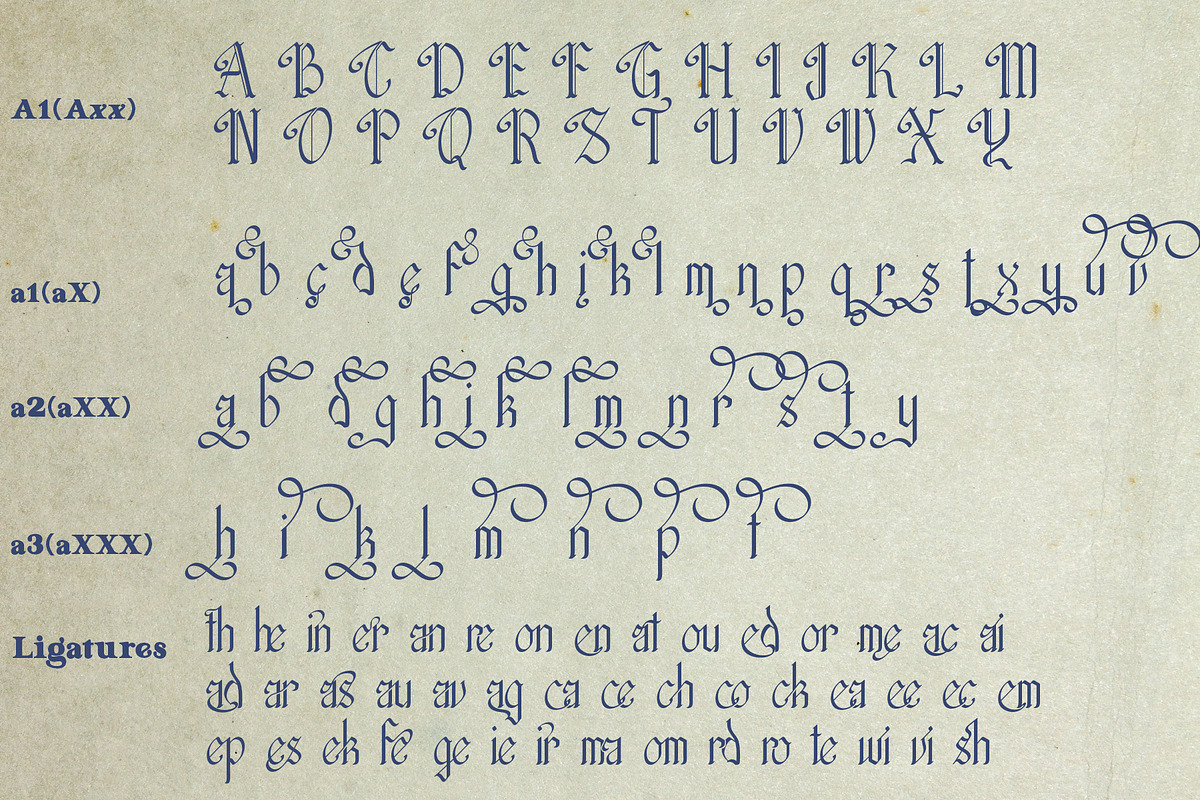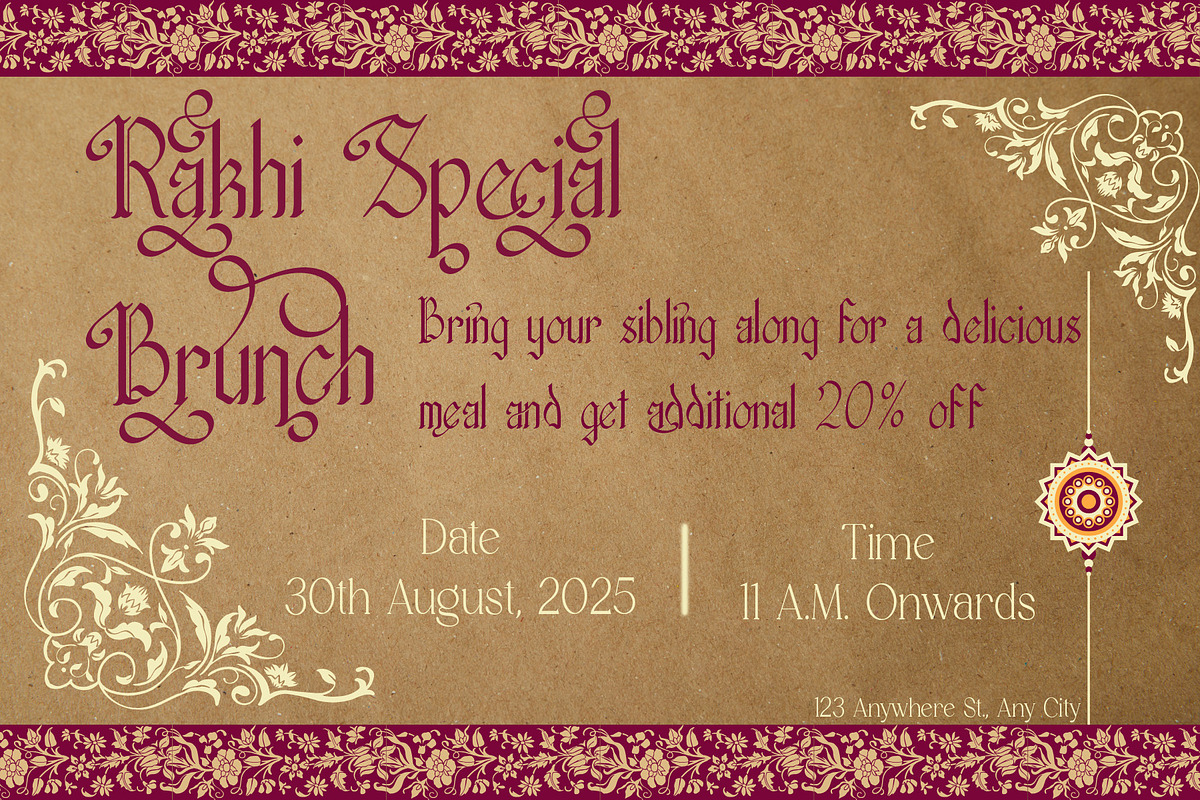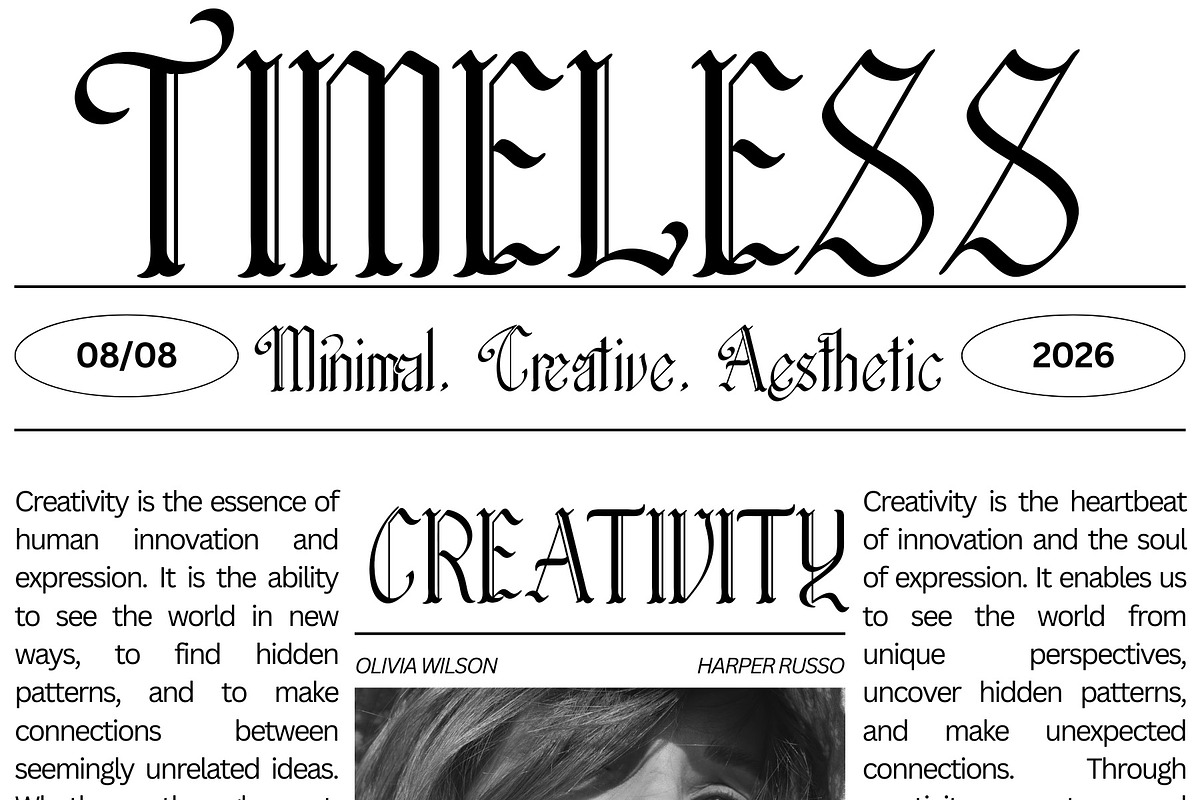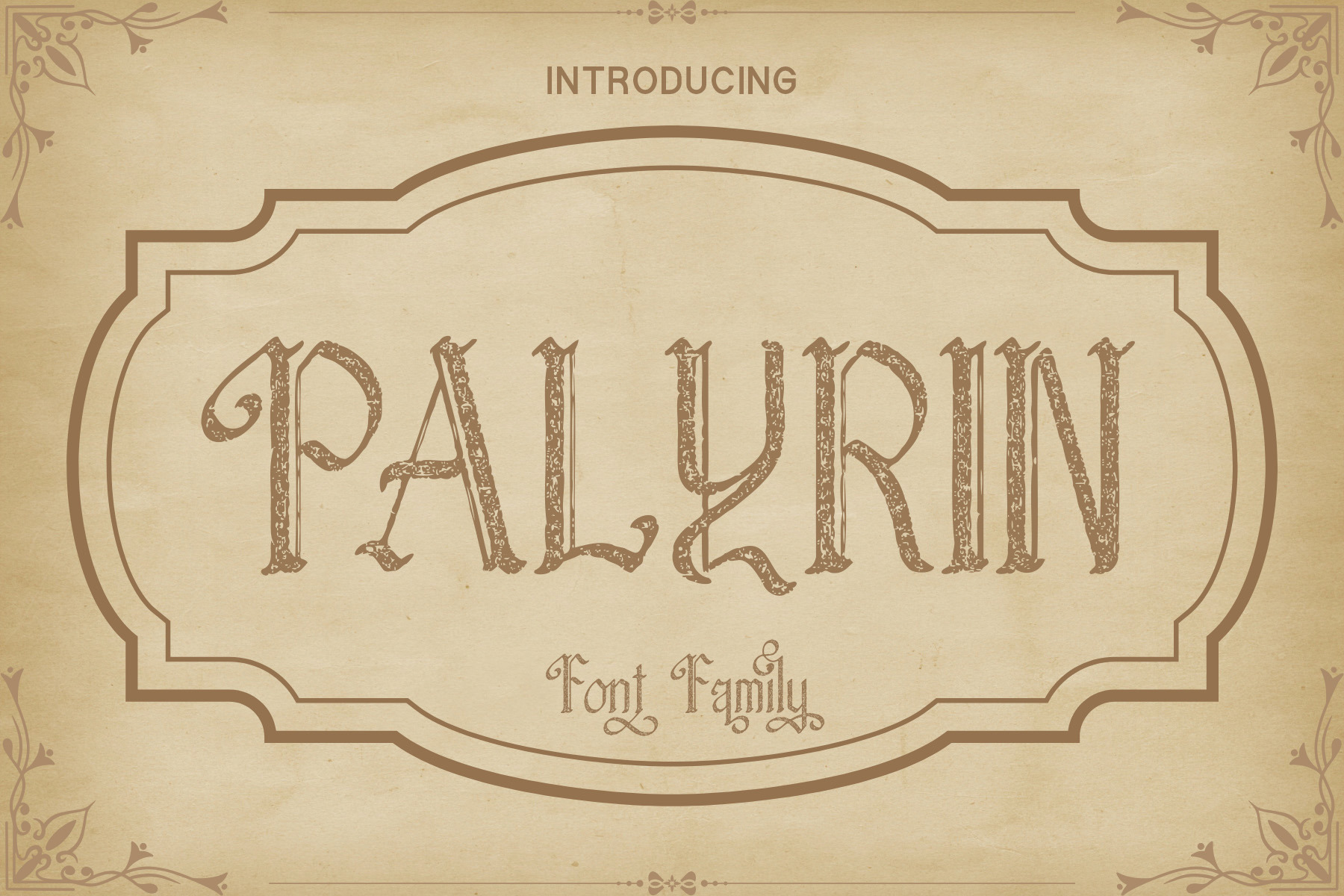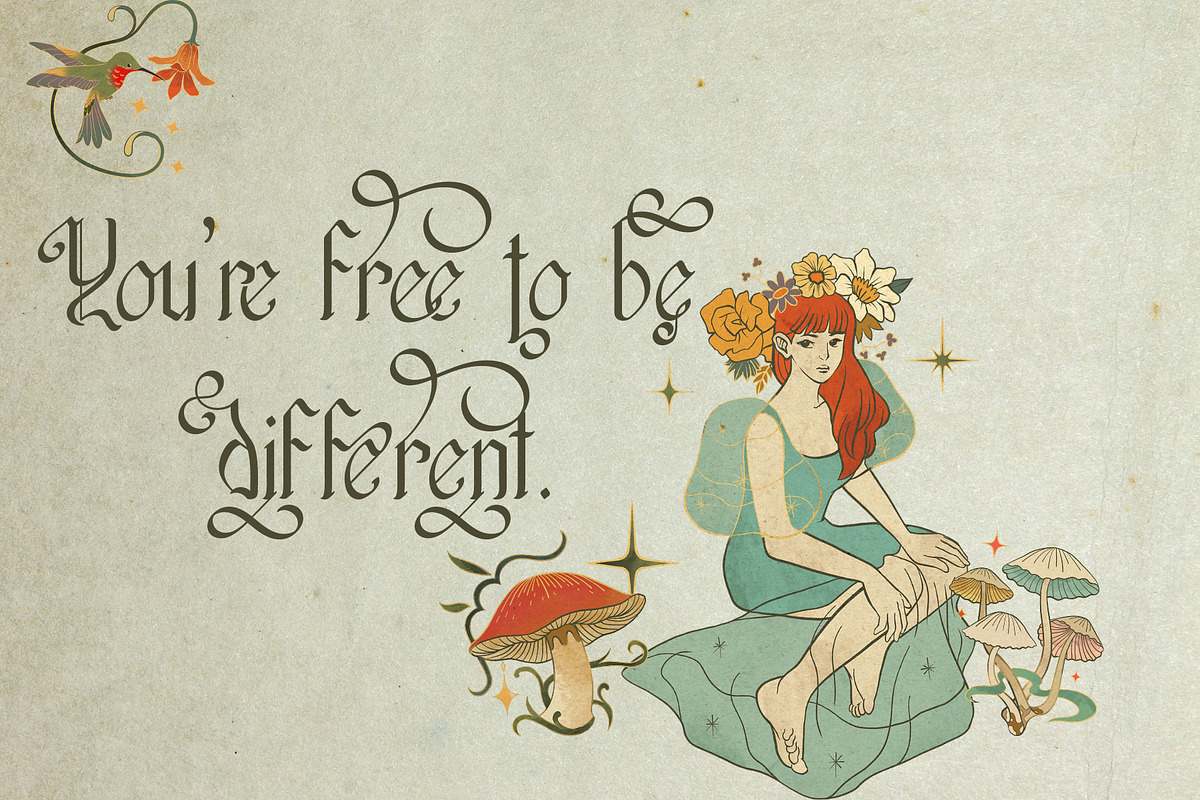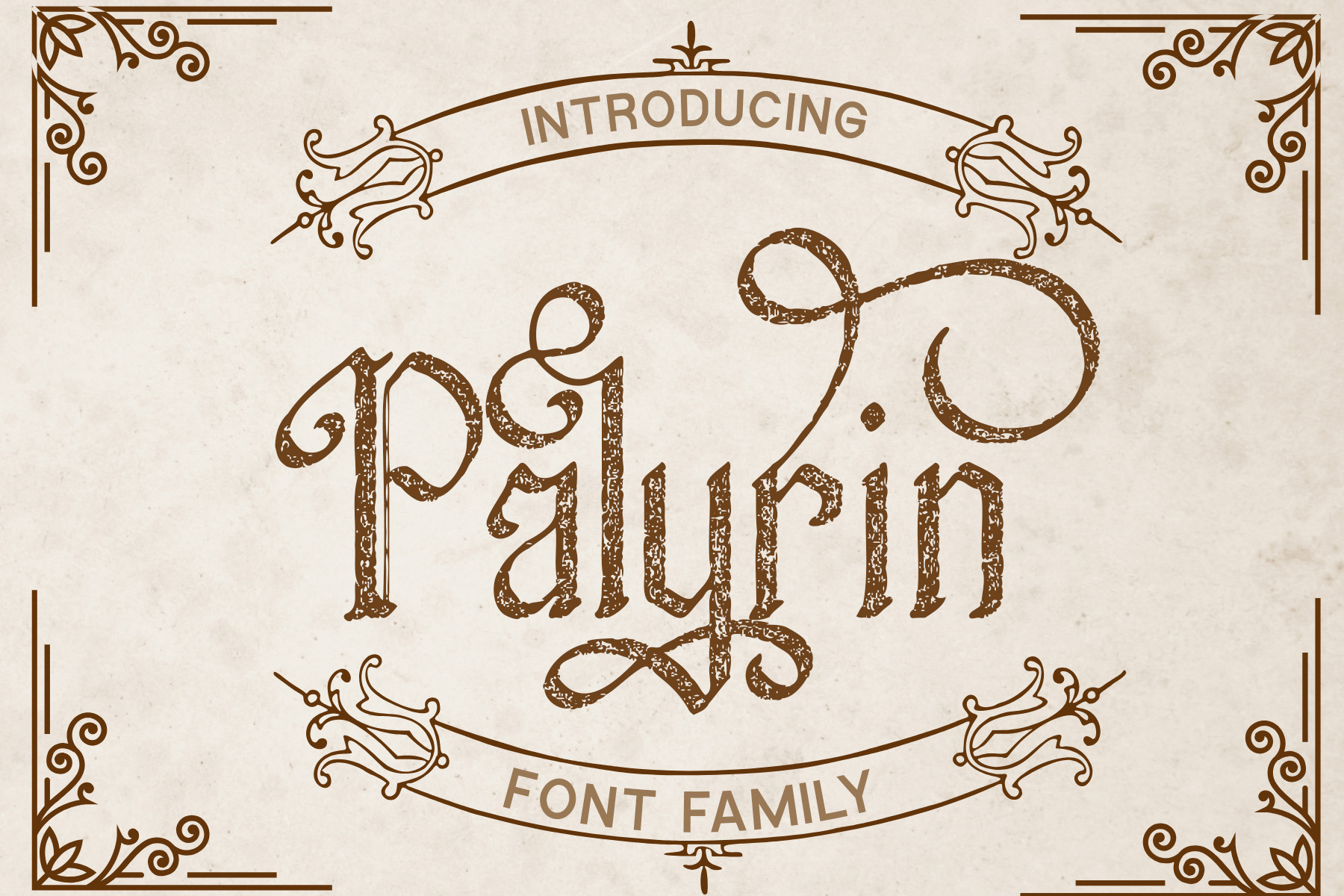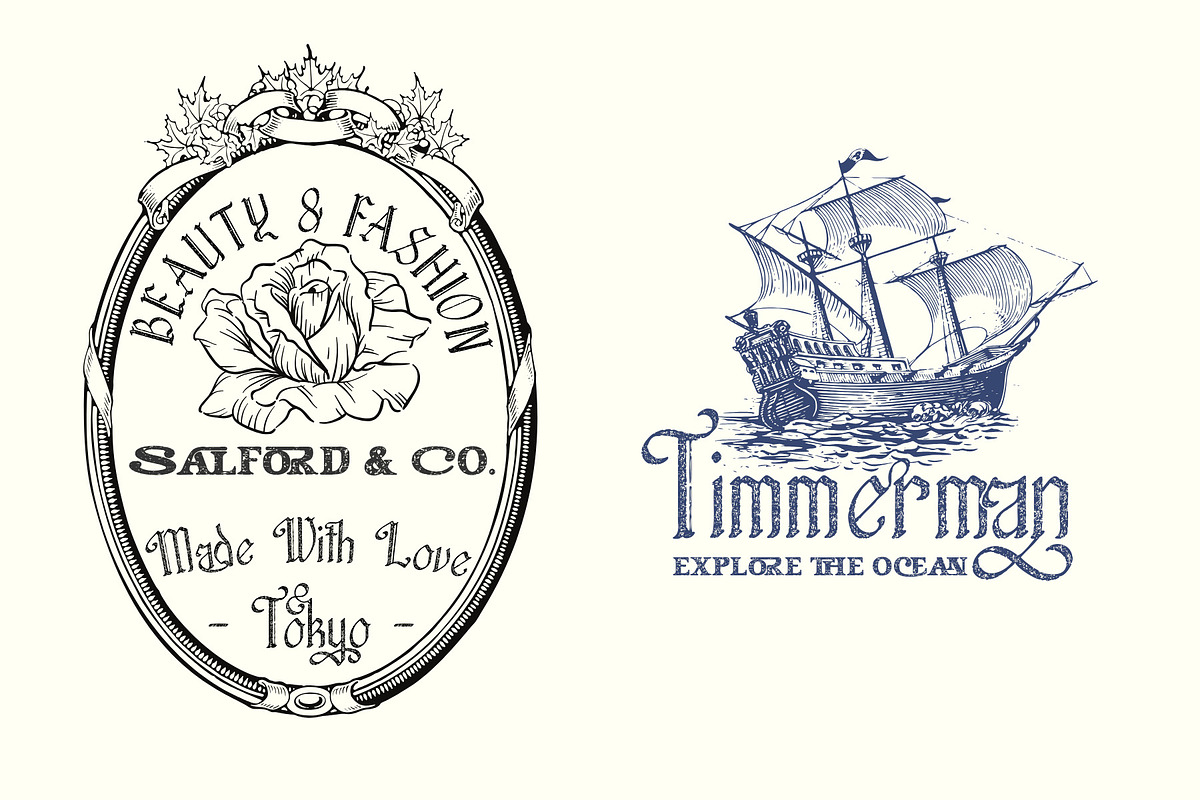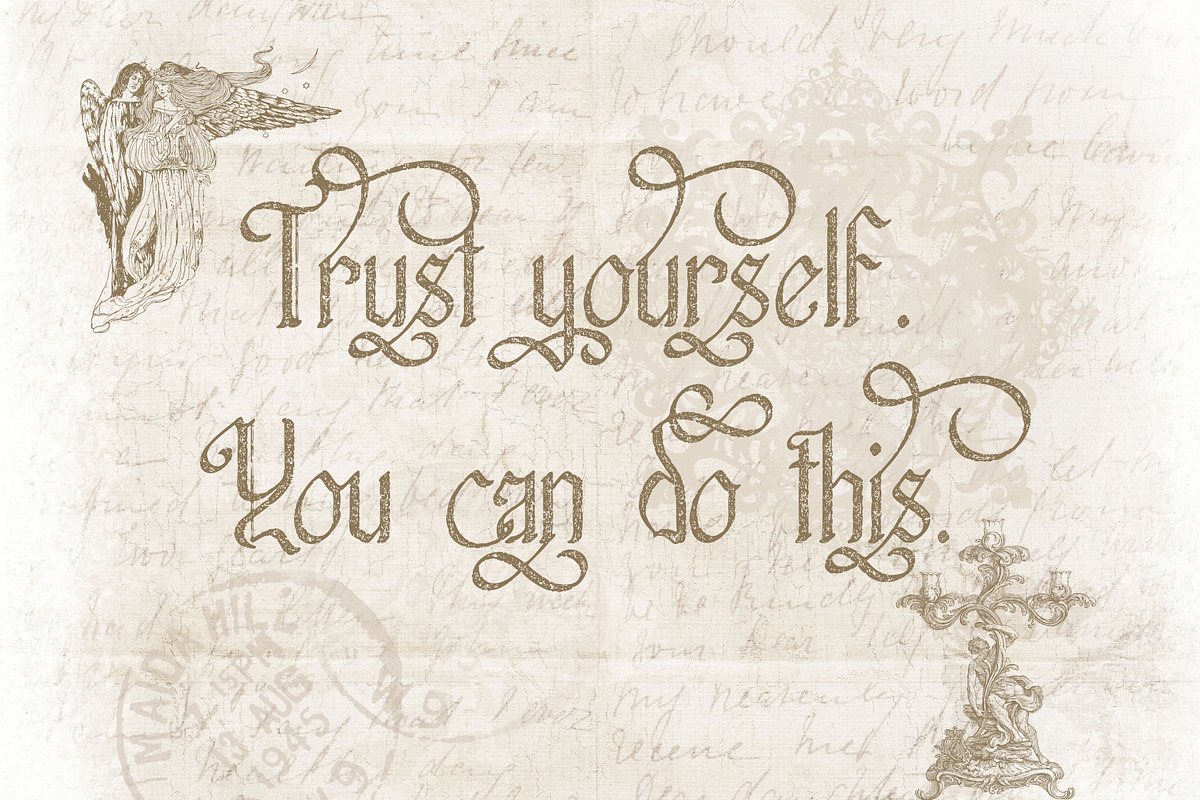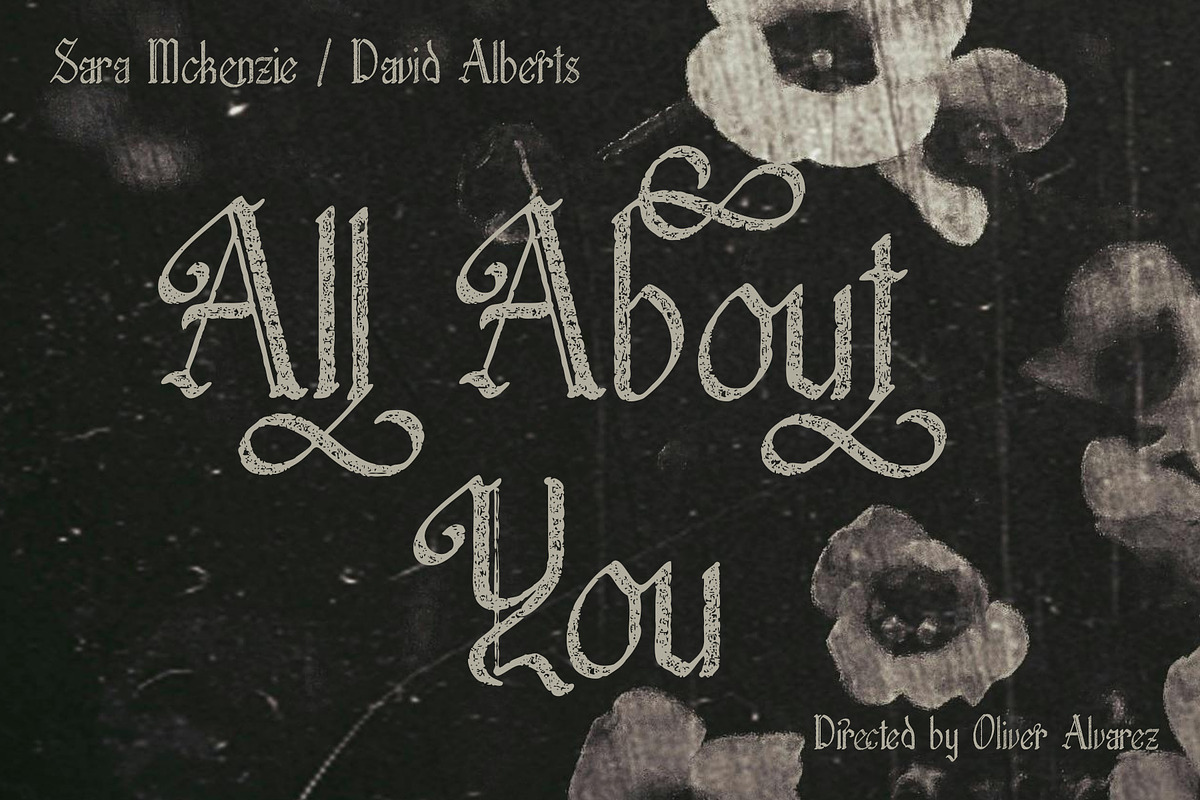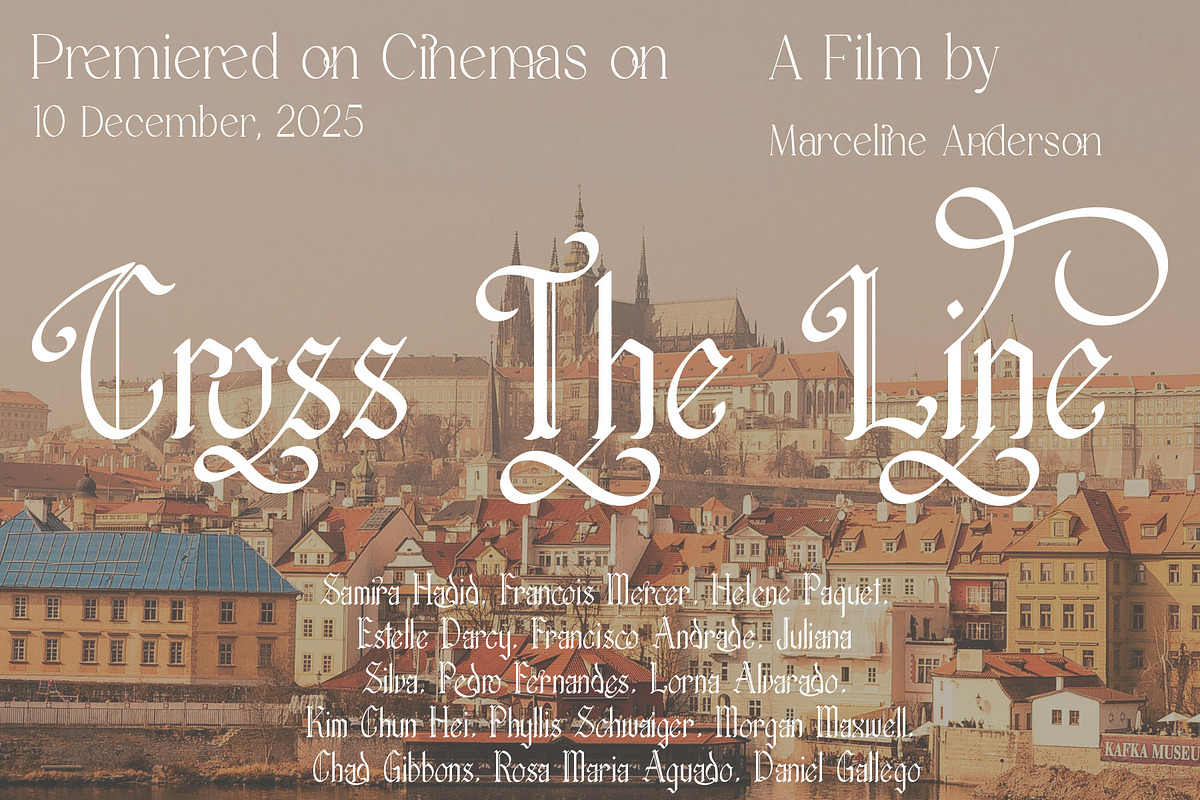
Palyrin – Blackletter Font Family
Introducing Palyrin!
Palyrin Font is a decorative Blackletter typeface inspired by classic European Gothic styles, combining strong medieval structures with elegant ornamental details. Enhanced with handcrafted texture effects, Palyrin delivers an authentic vintage look with bold character.
This font brings a powerful, artistic, and nostalgic atmosphere — perfect for projects that require a medieval, retro, or classic luxury aesthetic. Palyrin also features broad multilingual support and special characters, making it suitable for international creative work.